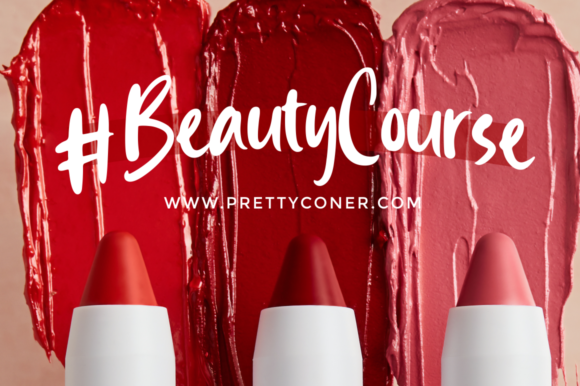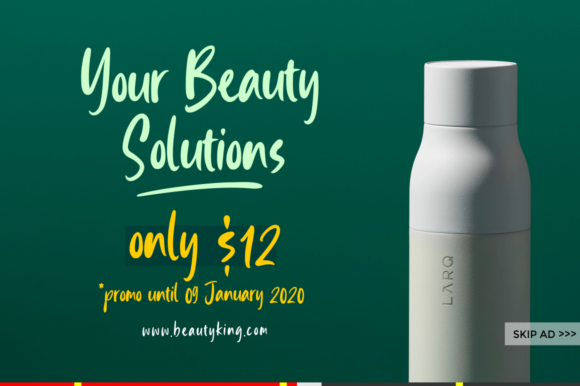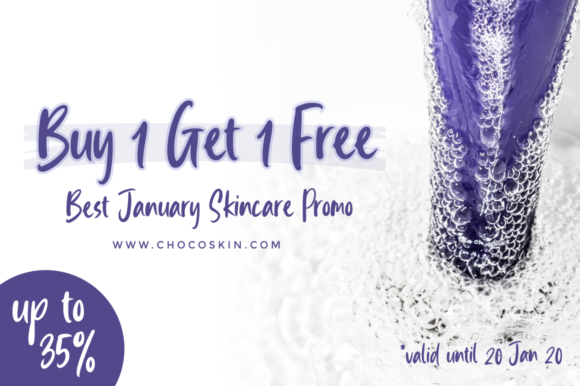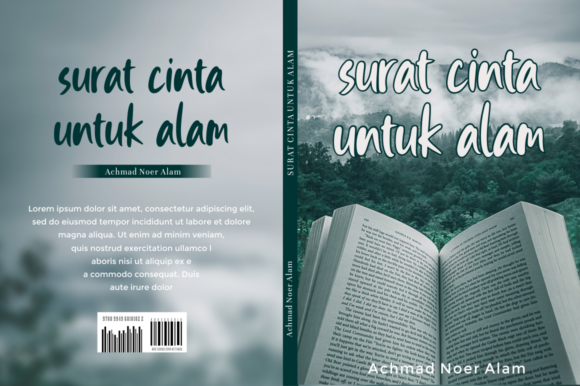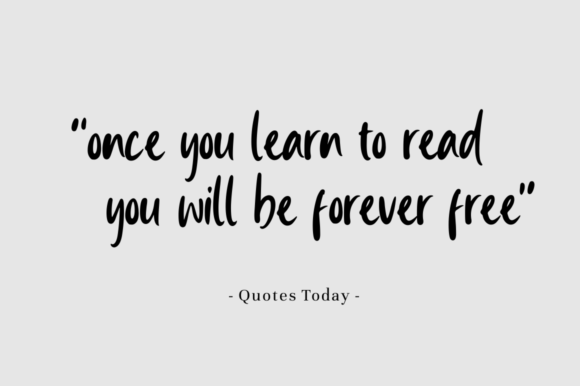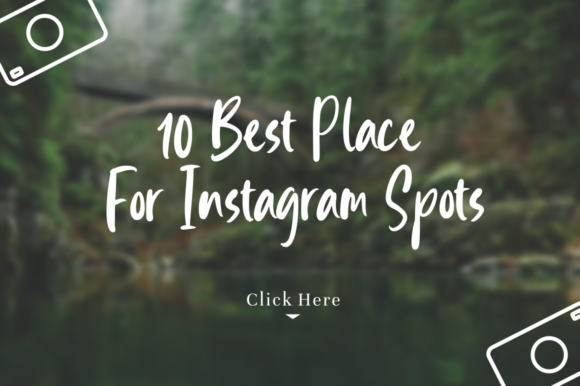
Introducing East Watch Font: Elevate Your Designs with a Modern and Neat Handwritten Style
In the world of typography, a font can make or break a design. For designers and crafters looking for a unique and impactful way to express themselves, East Watch Font is an exciting new addition to the world of typography. This simple yet thick lettered handwritten font is modern, neat, and sure to turn each of your designs into outstanding creations.
What is East Watch Font?
East Watch Font is a carefully crafted handwritten font that boasts a distinctive, thick lettered style. Its simplicity is its strength, offering a clean and uncluttered look that is both modern and highly legible. This font is perfect for designers who want to add a personal touch to their work without sacrificing clarity or readability.
Key Features of East Watch Font
- Simple and Thick Lettered: The font’s thick letters give it a bold presence, making it stand out in any design.
- Modern and Neat: Its clean lines and modern aesthetic ensure that your designs look contemporary and well-crafted.
- Handwritten Style: Despite its simplicity, the font retains a personal, handwritten feel that adds warmth and character to any project.
- Versatile: Suitable for a wide range of projects, from digital content to print materials, East Watch Font is a versatile addition to any designer’s toolkit.
Why Choose East Watch Font?
Choosing the right font for your project can be daunting, but East Watch Font offers several compelling reasons to consider it:
- Enhances Readability: Its clear and bold letters ensure that your message is conveyed effectively, making it ideal for both headings and body text.
- Unique Aesthetic: In a sea of generic fonts, East Watch Font offers a unique aesthetic that can help your designs stand out.
- Easy to Pair: Its neutral yet distinctive style makes it easy to pair with other fonts, giving you flexibility in your design choices.
- Time-Saving: With East Watch Font, you can achieve professional-looking results quickly, saving you time and effort in the design process.
Use Cases for East Watch Font
East Watch Font’s versatility makes it suitable for a variety of projects, including:
- Branding and Logo Design: Create a lasting impression with a bold and memorable logo.
- Digital Marketing Materials: Elevate your website, social media posts, and email newsletters with a modern and engaging font.
- Print Materials: From brochures and flyers to posters and business cards, East Watch Font can enhance any print project.
- Crafting and DIY Projects: Add a professional touch to your handmade products, such as labels, tags, and packaging.
Tips for Using East Watch Font Effectively
To get the most out of East Watch Font, consider the following tips:
- Experiment with Sizes: Play with different font sizes to create visual hierarchy and emphasize key points.
- Mix and Match: Don’t be afraid to pair East Watch Font with other fonts to add depth and interest to your designs.
- Adjust Line Spacing: Optimize line spacing to ensure your text is easy to read and visually appealing.
- Use it Boldly: Take advantage of the font’s bold style to make a statement and draw attention to important information.
East Watch Font is a powerful tool for designers and crafters looking to elevate their projects with a modern, neat, and handwritten style. Its simplicity, versatility, and unique aesthetic make it an excellent choice for a wide range of applications. By incorporating East Watch Font into your design arsenal, you can create outstanding creations that leave a lasting impression.
Whether you’re a seasoned designer or a DIY enthusiast, East Watch Font is sure to inspire and enhance your creative endeavors. So why wait? Explore the possibilities of East Watch Font today and discover how it can transform your designs into something truly special.